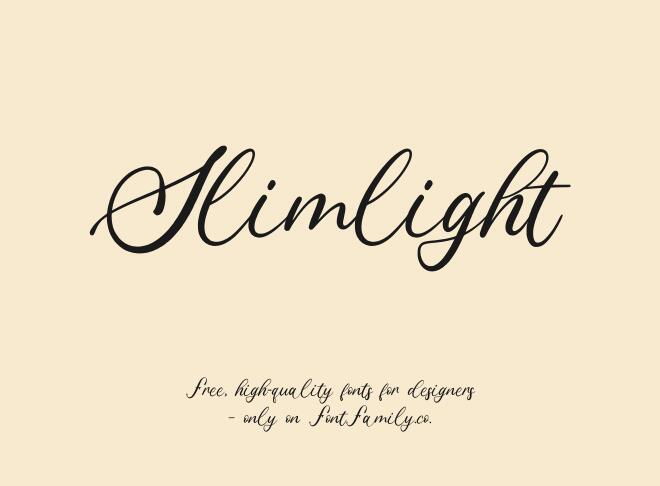
Slimlight Font
Slimlight Font is a sleek, modern and minimalistic font created by Creatype Studio. Its thin, lightweight design makes it perfect for a wide array of design projects including logos, headlines, and banners. The font's clean lines and polished look evoke a sense of sophistication and elegance, making it an ideal choice for luxury brands and high-end products. Compared to other similar fonts, Slimlight stands out due to its unique balance between simplicity and style. Its versatile nature makes it a must-have in every designer's toolkit. Despite its minimalistic design, Slimlight doesn't compromise on readability and can be used in both digital and print mediums with ease. Choose Slimlight Font to give your designs a modern, fresh, and stylish touch.